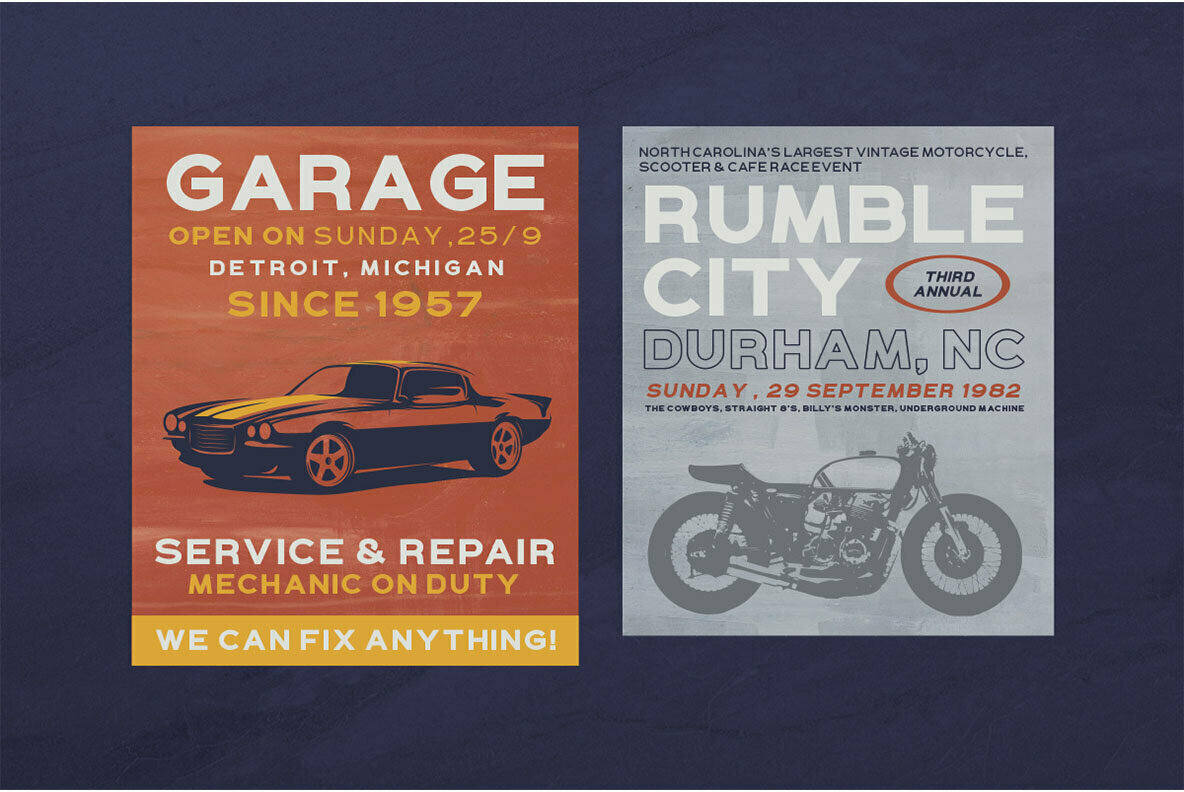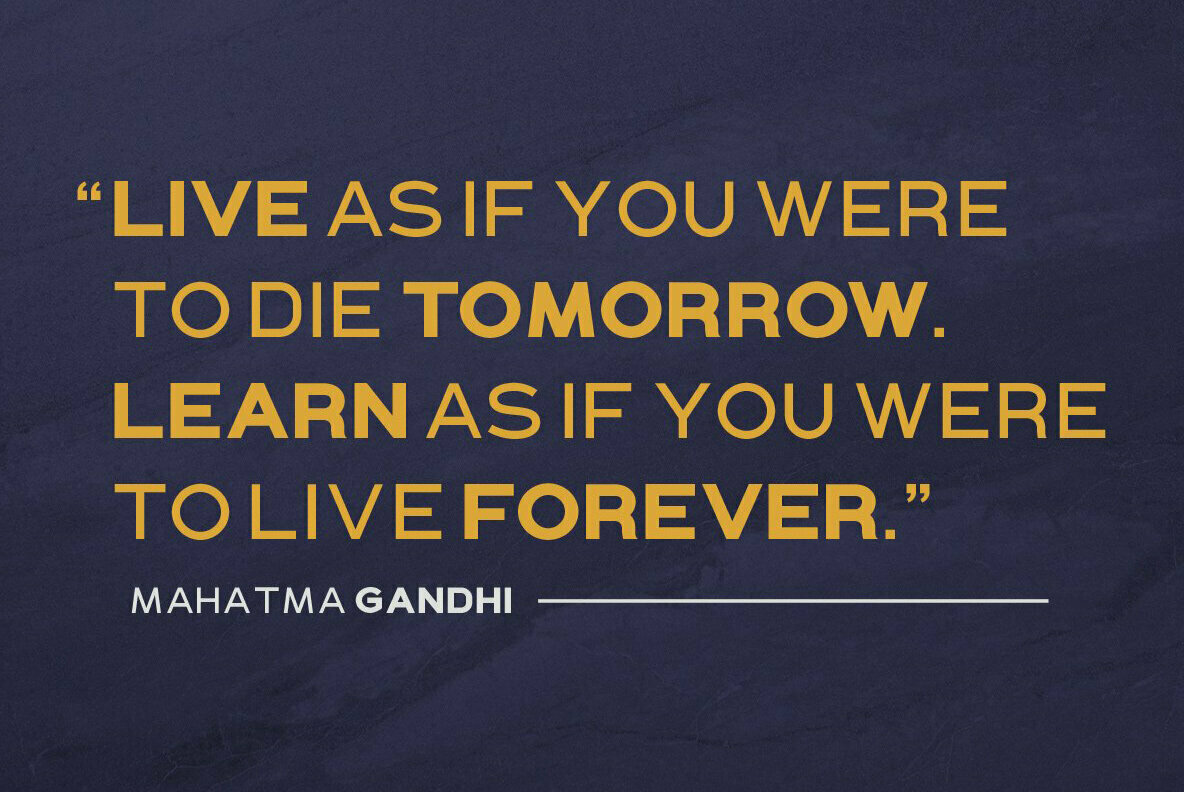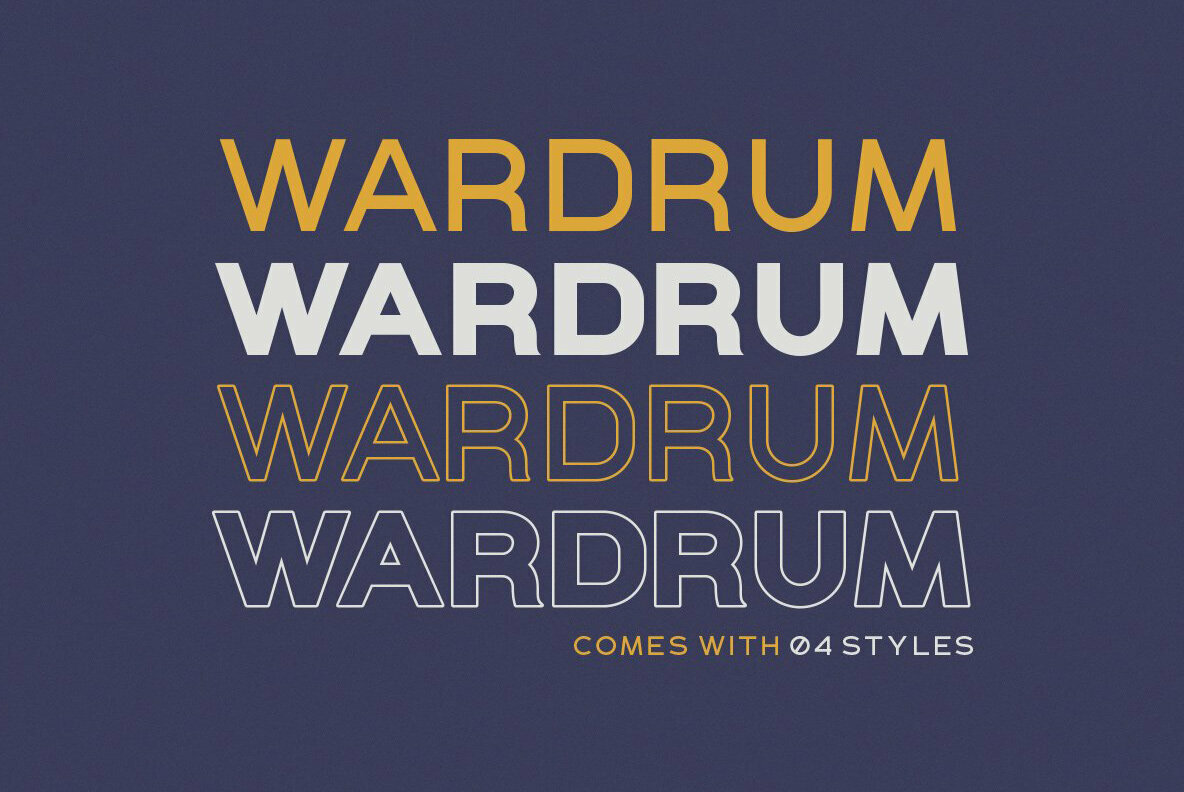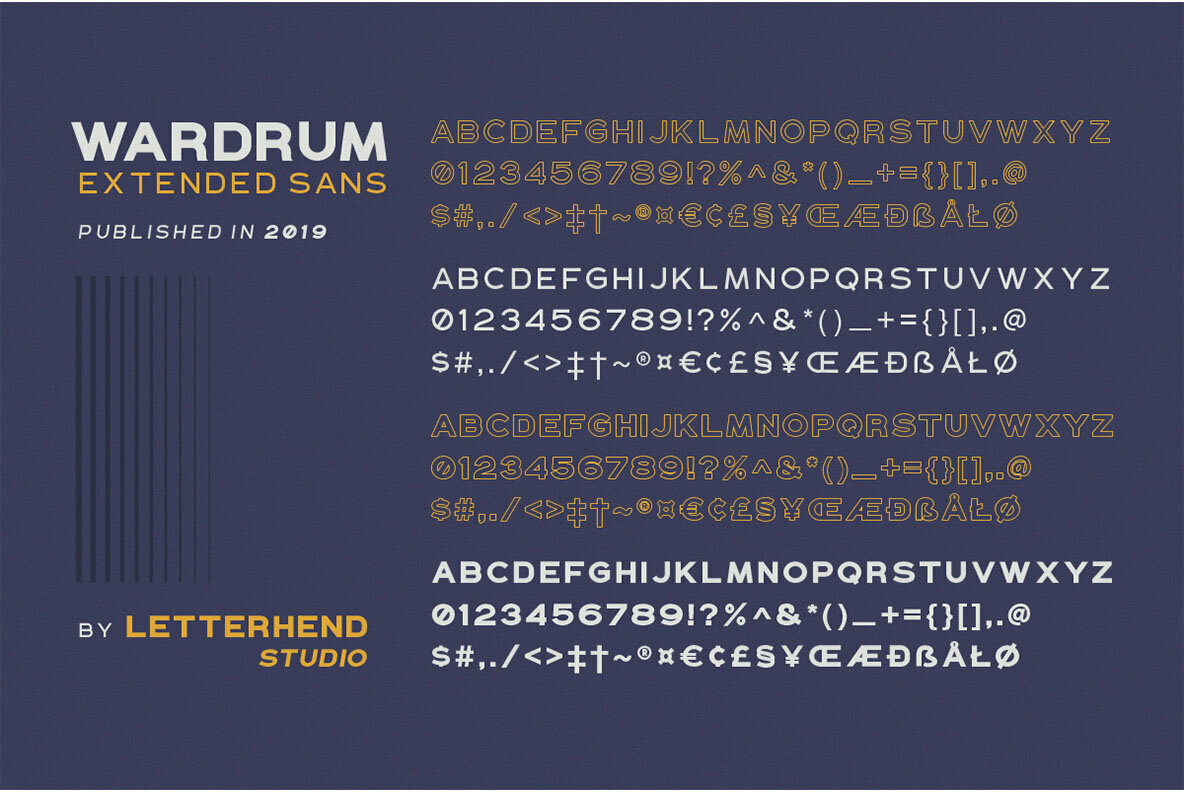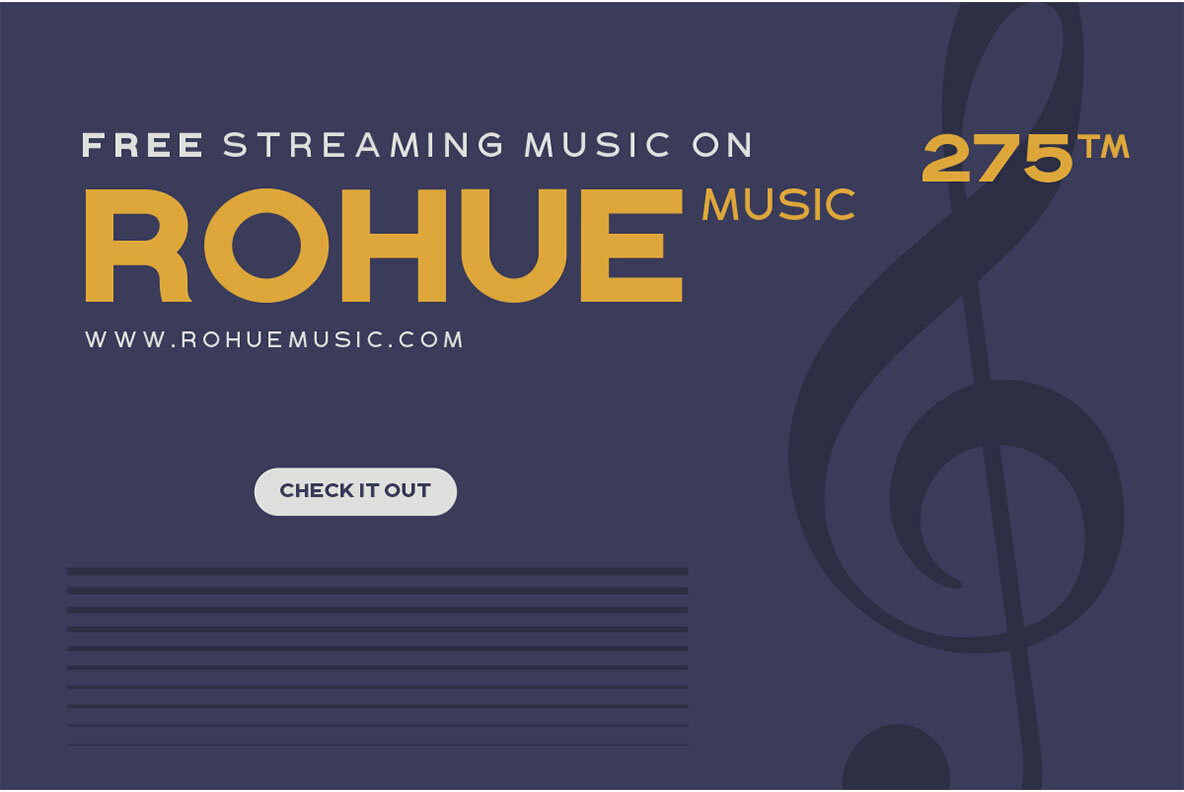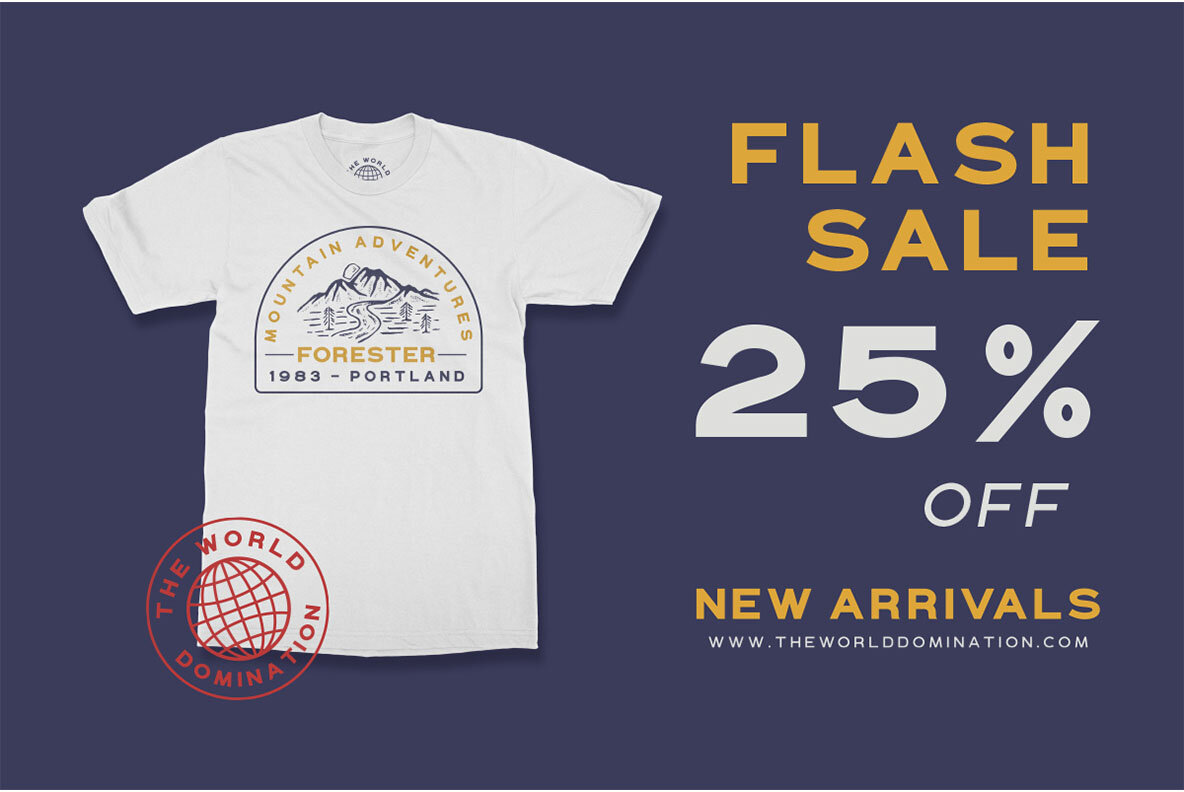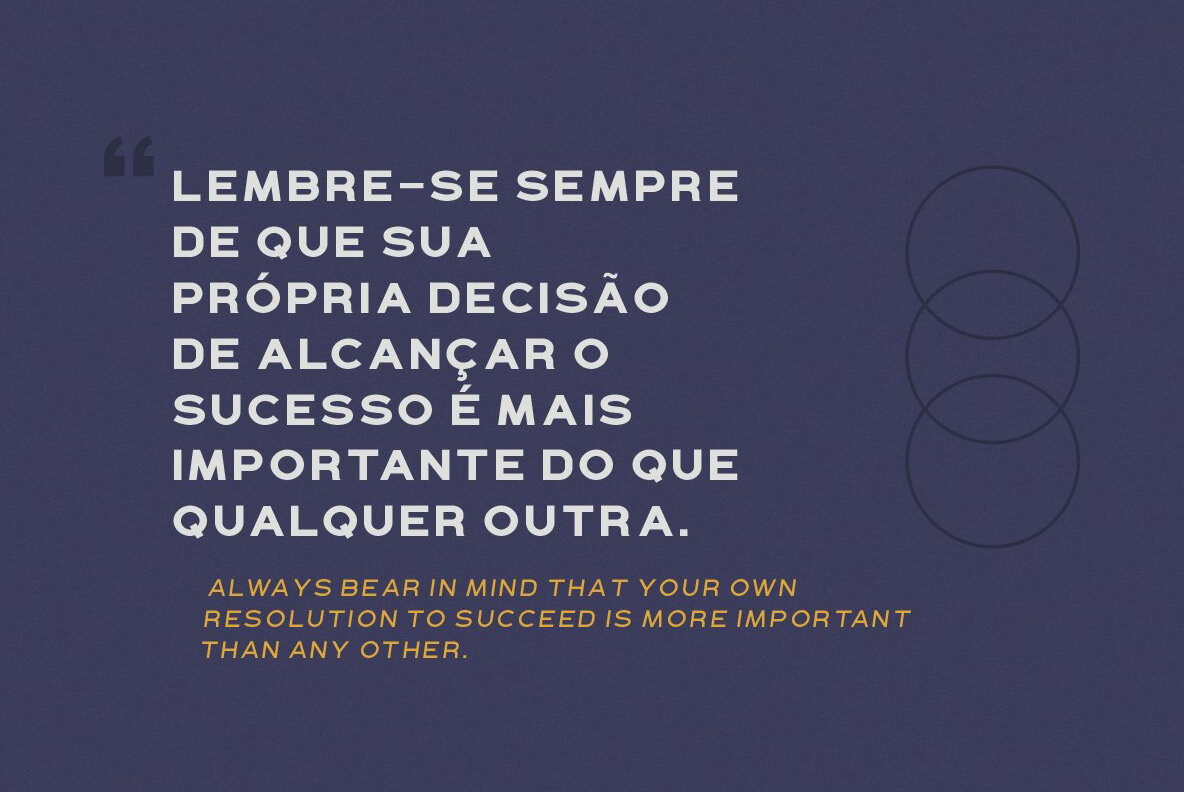
WARDRUM Font
Wardrum Regular
Wardrum Bold
Wardrum Outline
Wardrum Bold Outline
WARDRUM is an expanded sans with four style! Use this font for your new project. Suitable for branding, poster, or your headline! This font contain uppercase only with number, symbol, punctuations and also support multi language!